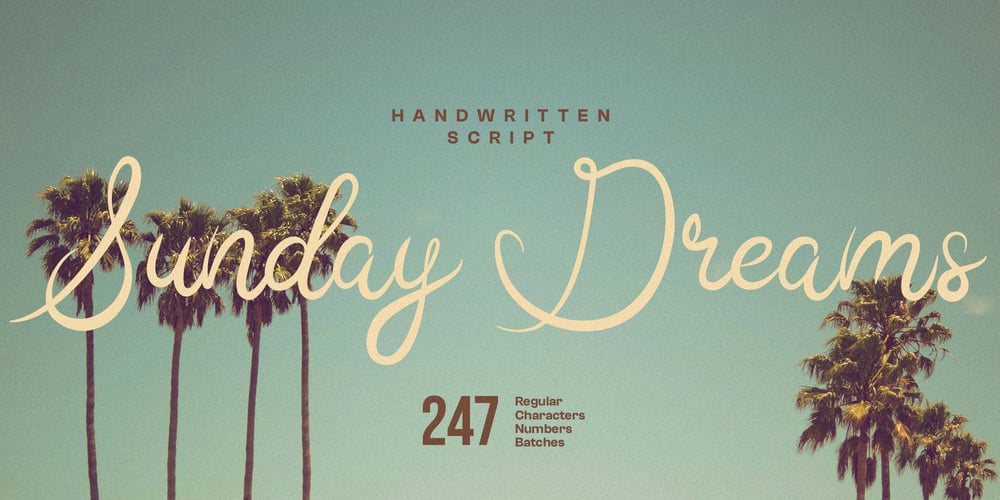
Sunday Dreams Font Family was designed by Tetiana Bunakova and published by Tetiana Bunakova. Sunday Dreams contains 1 styles and family package options. Welcome natural looking handwritten Sunday Dreams script with opentype ligatures for your next design project. Perfect for business and personal purposes. Create packaging design, brand identity, art posters, invitations, restaurant menu and more.